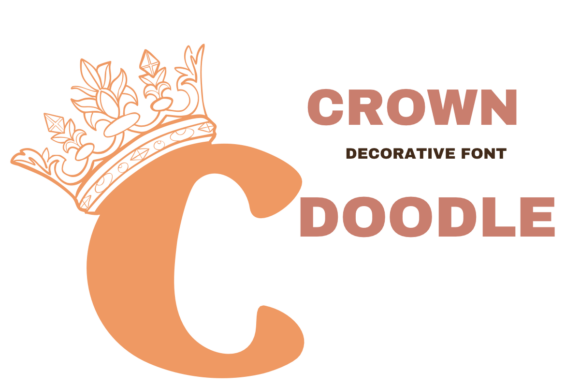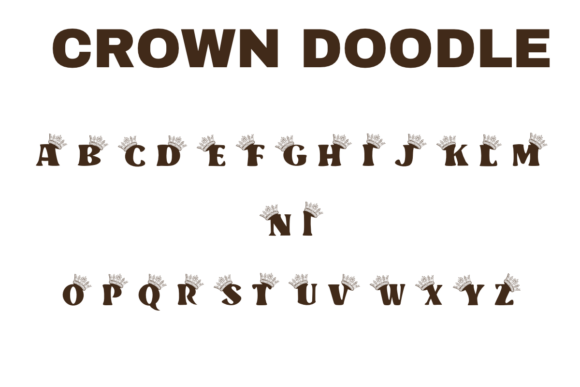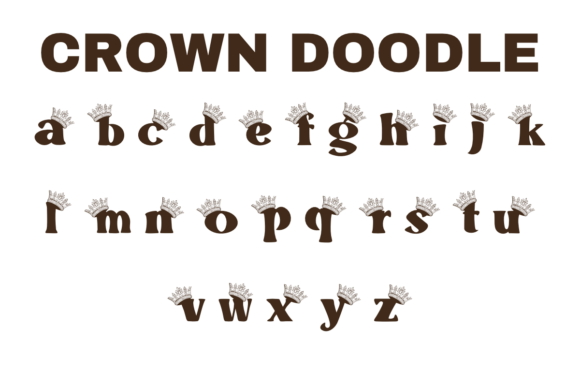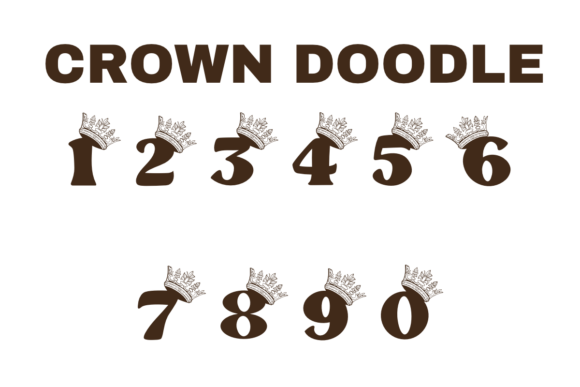
Crown Doodle Font
About the Crown Doodle Font
Get ready to be inspired by Crown Doodle Font, a fresh and dynamic typeface for modern creators. Crown Doodle is a decorative font. You can use it for taking notes, writing a diary, or making greeting cards. However, you can still use it for other designs, such as banners, content, mugs, cards, shirts, stationery, social media posts, and more!
Crown Doodle’s playful, hand-drawn aesthetic makes it ideal for projects requiring a friendly, approachable feel. It excels in headlines, short text blocks on packaging, and social media graphics. Use it sparingly in branding applications, perhaps as a logo element or secondary text.
Avoid using Crown Doodle for body text or lengthy paragraphs; its decorative nature hinders readability at smaller sizes. It’s also unsuitable for UI applications where clarity and consistency are paramount.
Pairing Crown Doodle with a clean sans-serif like Open Sans for body copy or a classic serif like Garamond for more formal elements creates a balanced design. For a more whimsical feel, consider pairing it with a script font like Pacifico.
Crown Doodle Font Usage Examples
Crown Doodle Font Example